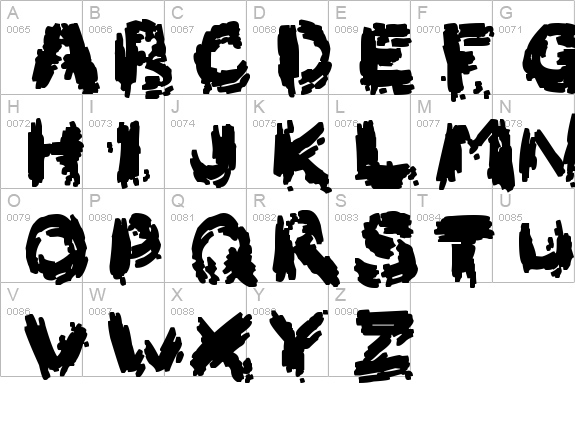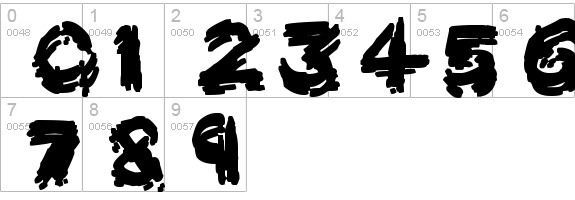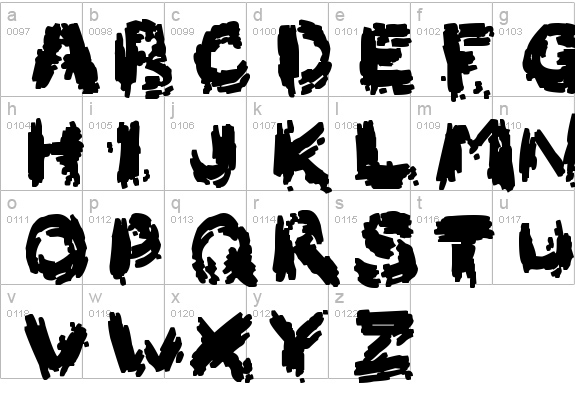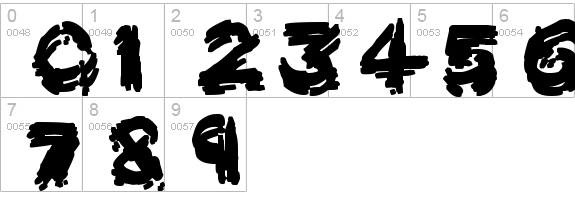
Burnt Firewood Font Details
Burnt Firewood is a free for personal use font in the Theme > Horror category, designed by Darrell Flood. It has been downloaded 87 times and is available for Windows, Mac and Linux.
The Burnt Firewood font is a unique and rustic typeface that exudes warmth and character. Its irregular, hand-drawn appearance gives off a charming and organic feel, perfect for adding a touch of natural beauty to your designs. The Burnt Firewood font captures the essence of crackling flames and smoky embers, making it an ideal choice for projects that require a cozy and inviting aesthetic.